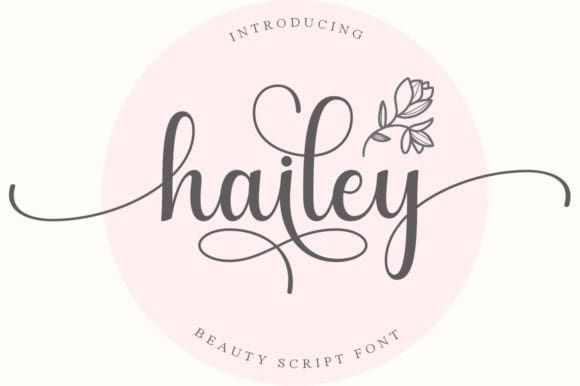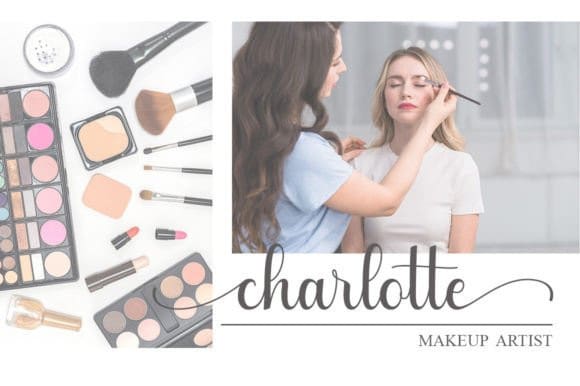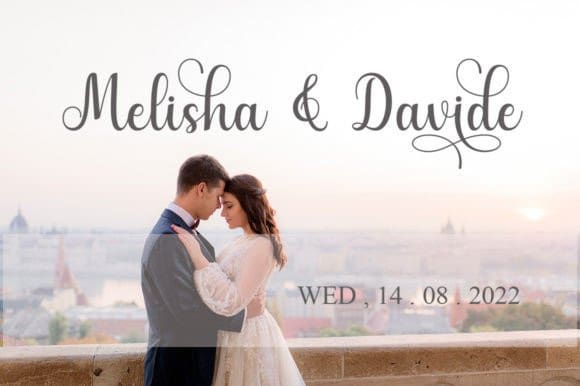
Hailey Calligraphy Font
Hailey Calligraphy Font is a delicate, elegant, and flowing handwritten font perfect for your favorite projects. Fall in love with its incredibly distinct and timeless style, and use it to create spectacular designs!